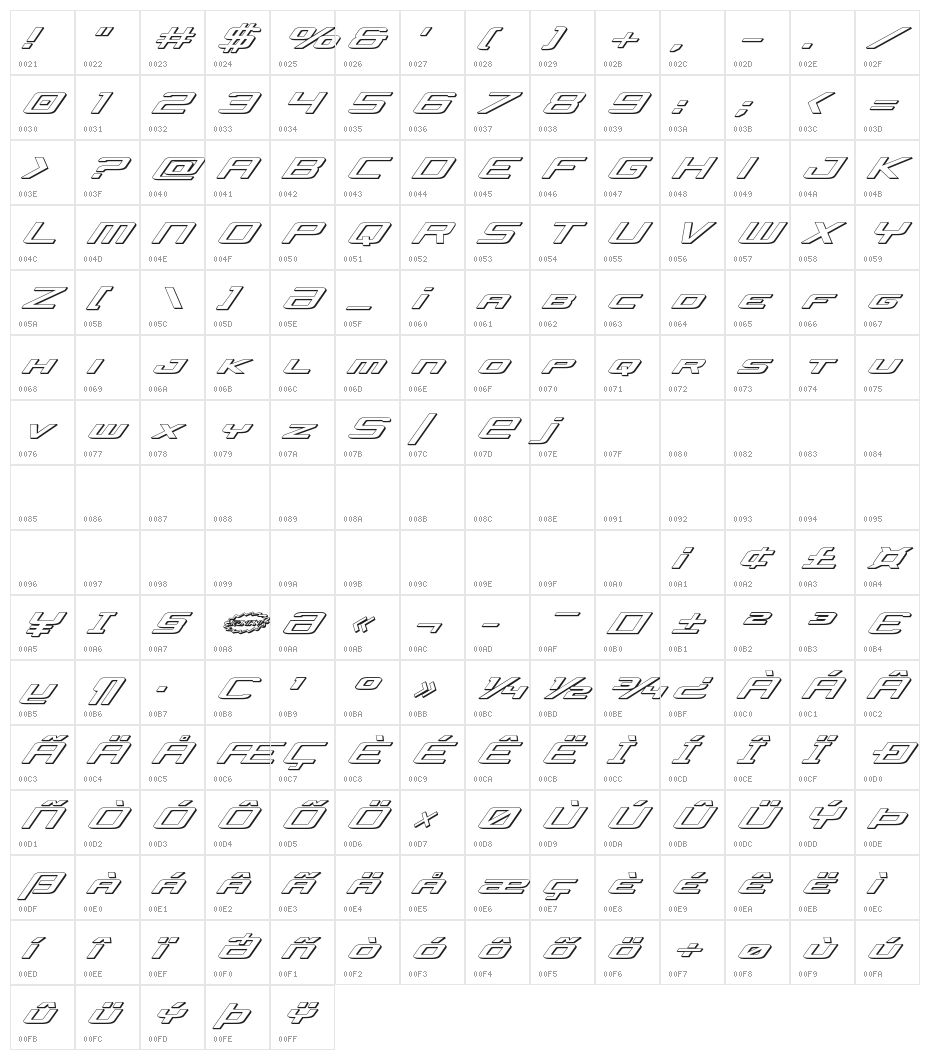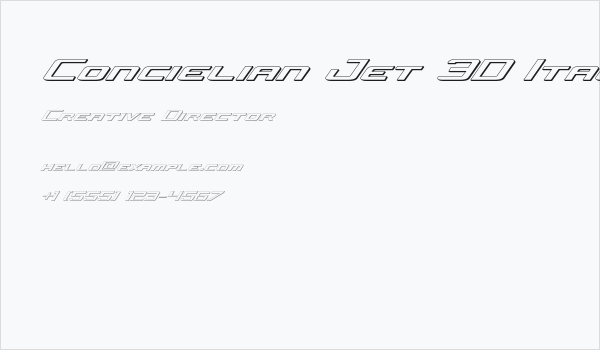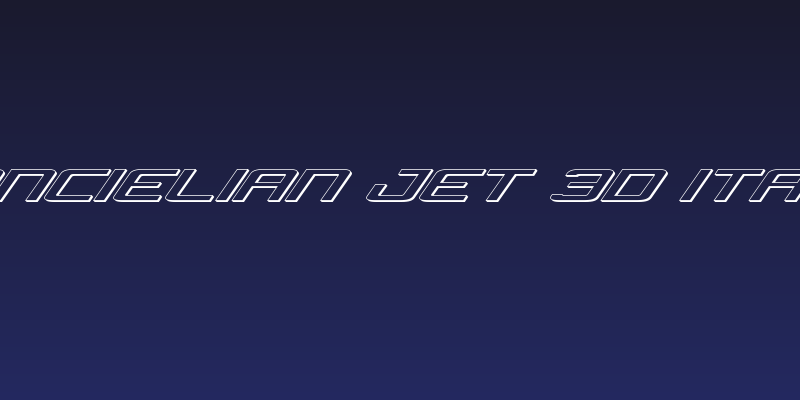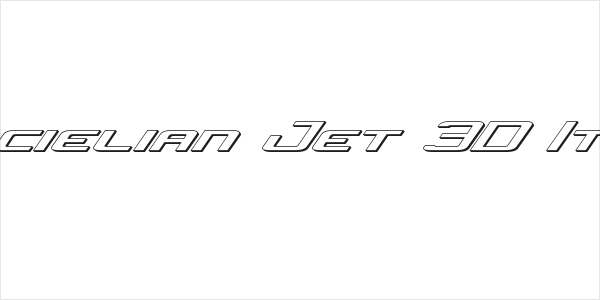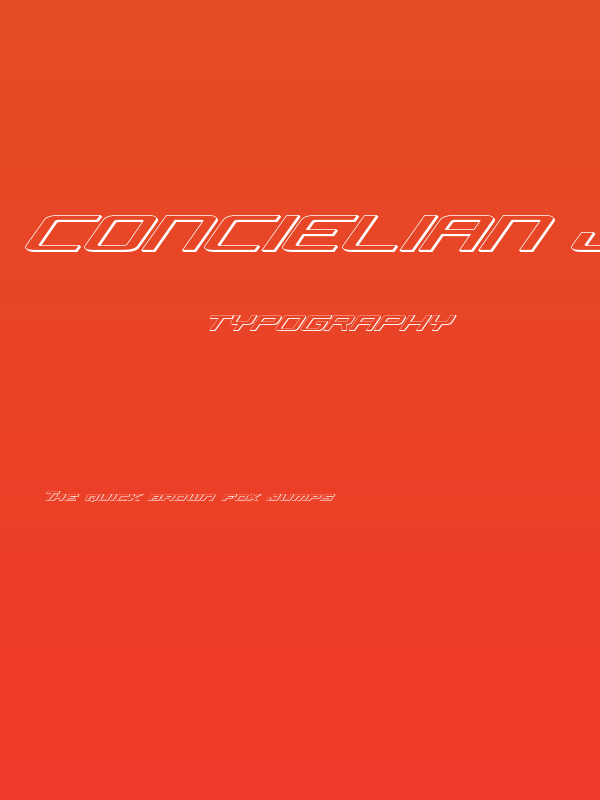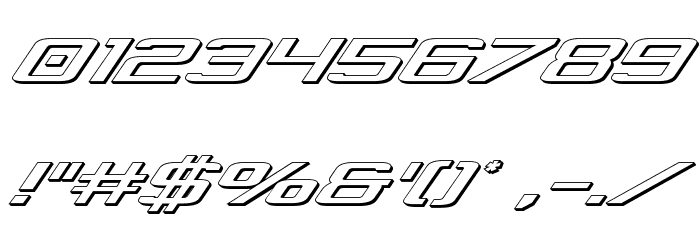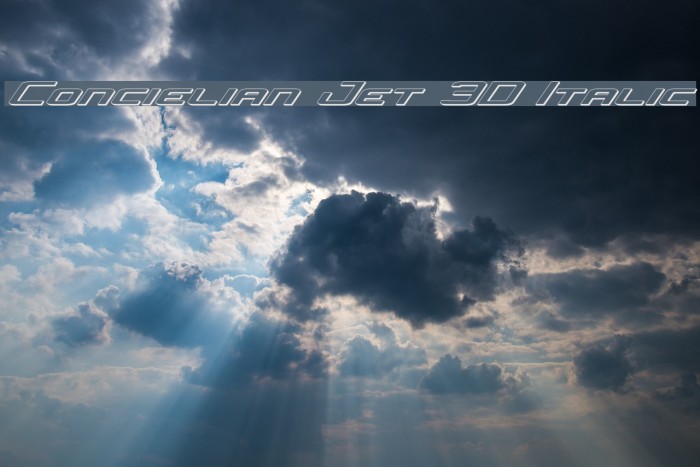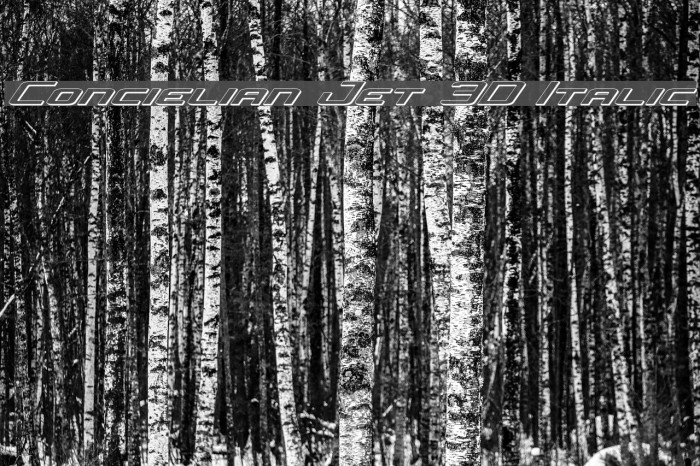
Concielian Jet 3D Italic Font
Concielian Jet 3D Italic Description
This font features a dynamic and futuristic design with a 3D effect that gives it a sense of depth and movement. The characters are outlined, creating a hollow appearance that enhances its modern aesthetic. Each letter is slightly slanted, adding to its italicized style. The font maintains a consistent geometric structure, with sharp angles and clean lines that contribute to its sleek and contemporary look. The numbers and special characters follow the same design principles, ensuring uniformity across all glyphs. This font is perfect for projects that require a bold and eye-catching typeface with a modern twist.
| Proposed Projects | Ideal for technology branding, sci-fi posters, video game titles, and modern advertising. |